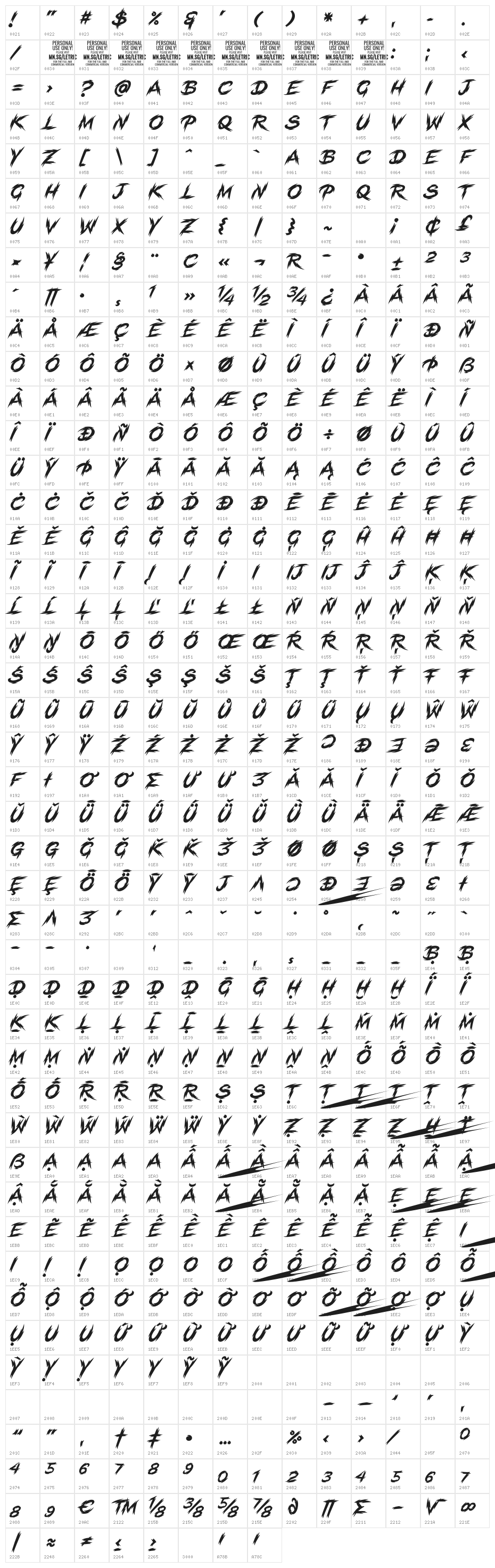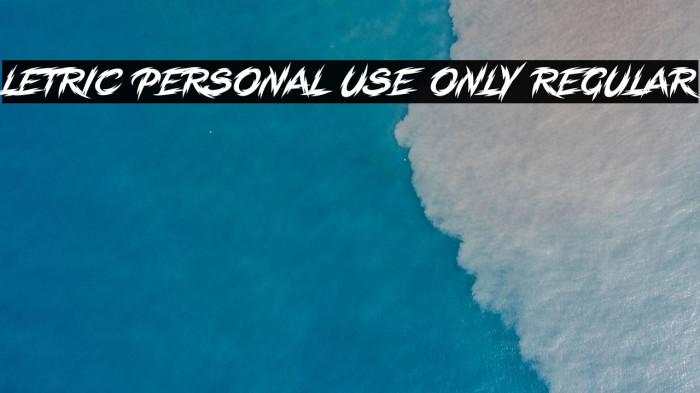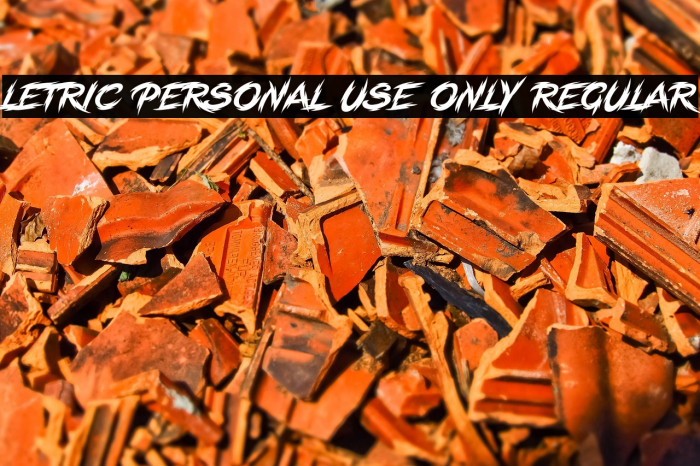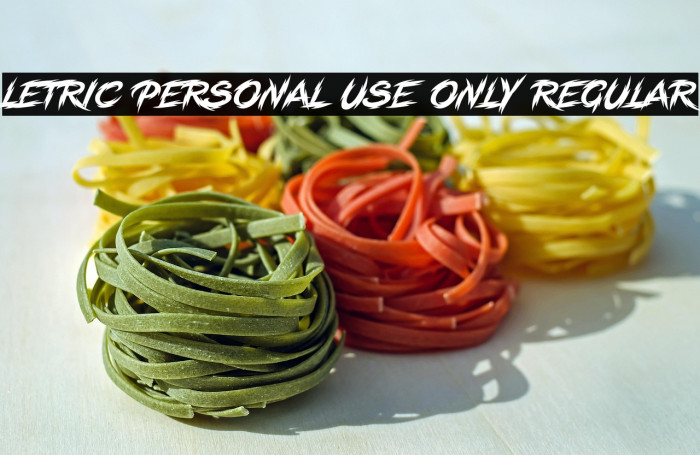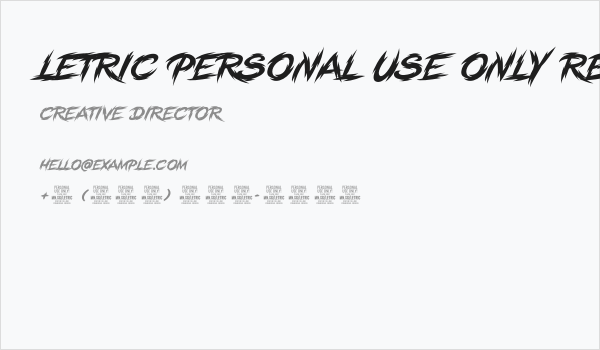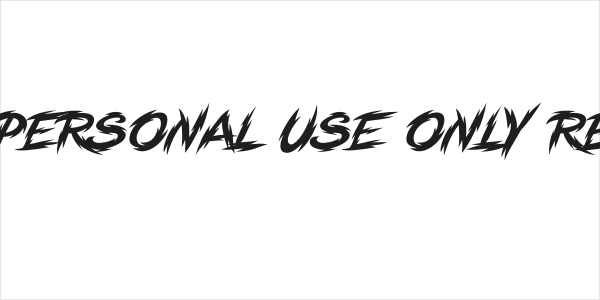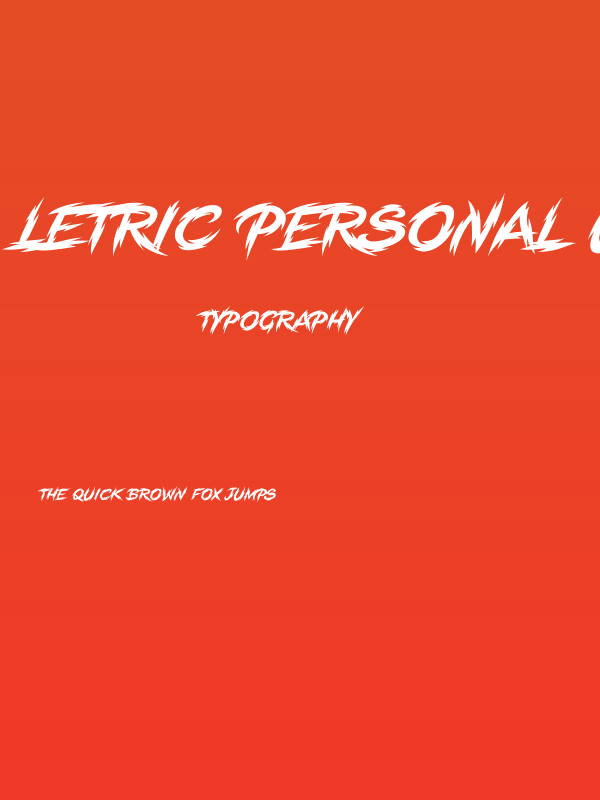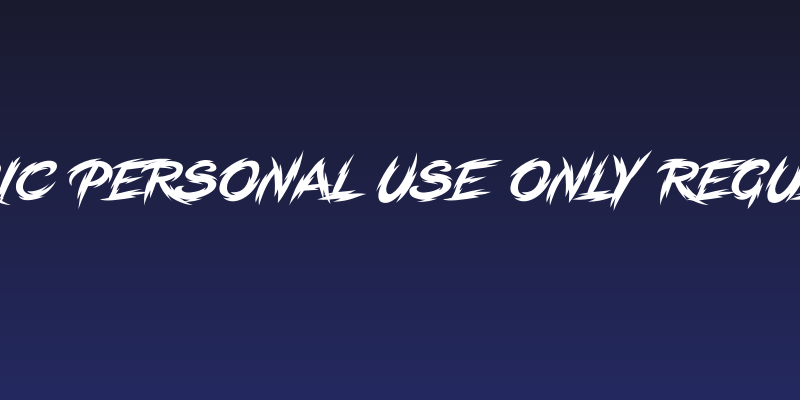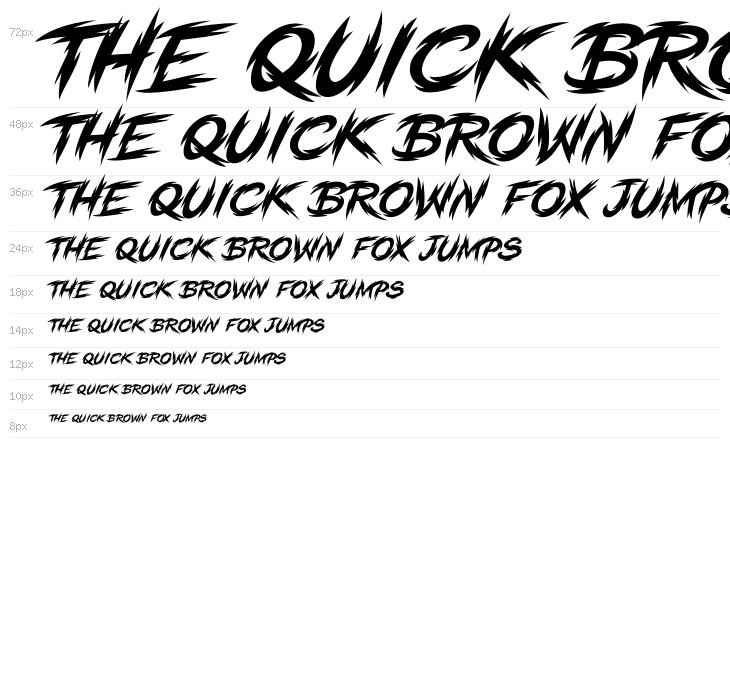
Letric PERSONAL USE ONLY Regular Font
Letric PERSONAL USE ONLY Regular Description
This font features a bold, jagged design with sharp edges and dynamic strokes, creating a sense of movement and energy. The characters are highly stylized, with an aggressive and edgy appearance that makes them stand out. The uppercase and lowercase letters maintain a consistent style, while the numbers and special characters complement the overall aesthetic. This font is ideal for projects that require a striking and unconventional look.
| Overall Style | Modern, Edgy |
| Proposed Projects | Perfect for music album covers, extreme sports branding, video game titles, and edgy poster designs. |